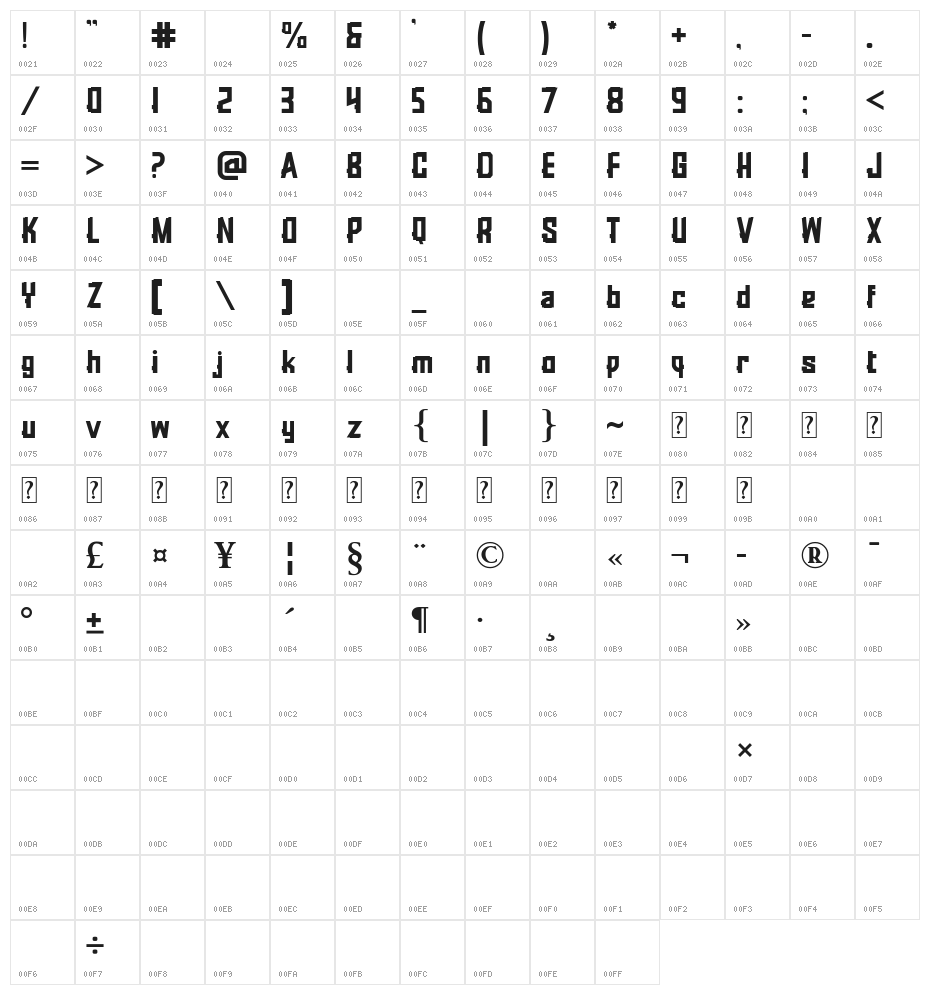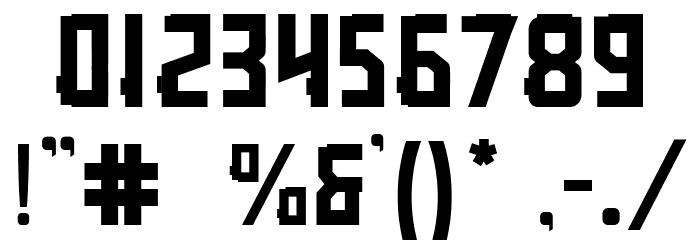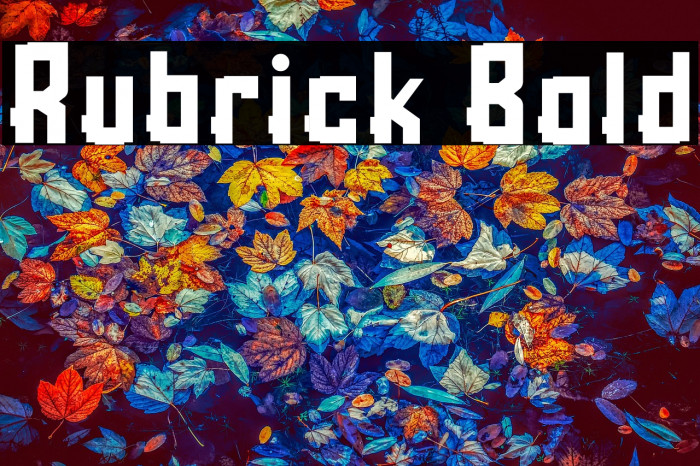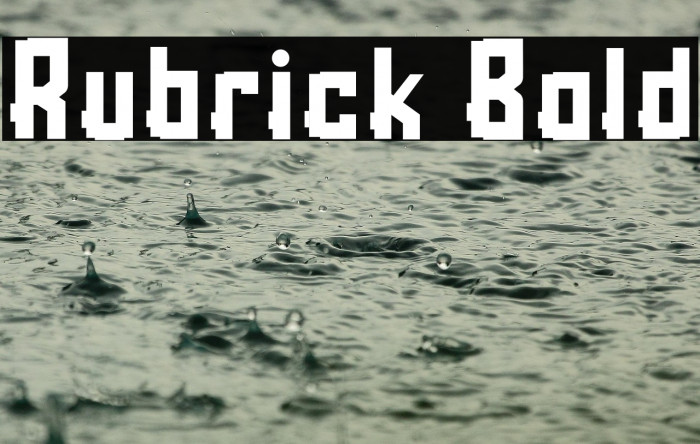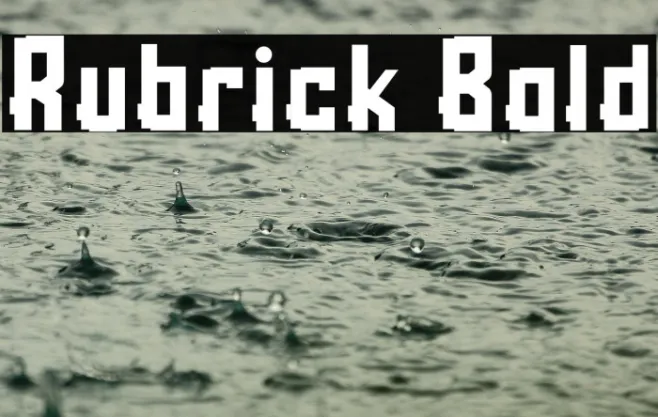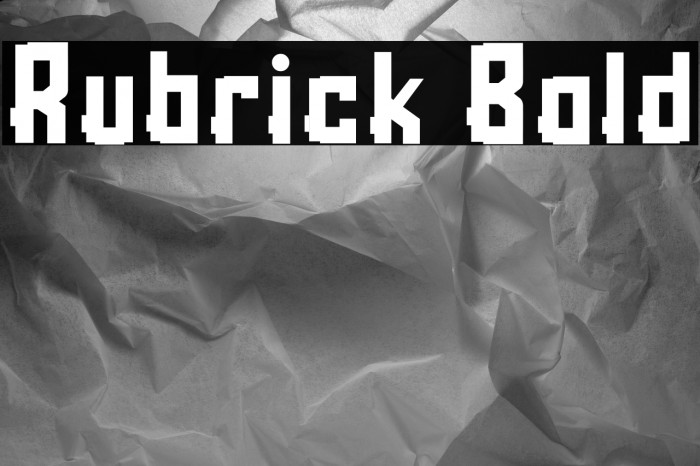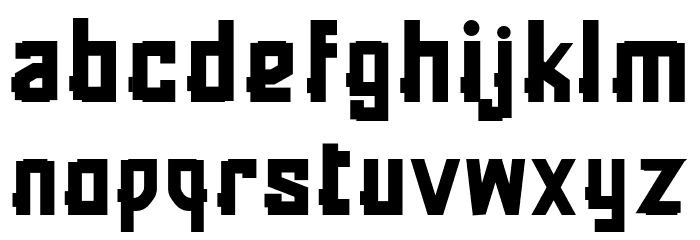
Rubrick Bold Font
Rubrick Bold Description
This font exhibits a bold, geometric style with a pixelated appearance reminiscent of digital or retro video game aesthetics. The characters are blocky and angular, with consistent stroke widths that create a uniform and structured look. The uppercase and lowercase letters maintain a similar height, contributing to the font's cohesive and compact design. The numerals and special characters follow the same stylistic approach, ensuring visual harmony across all elements. The font's distinct style makes it stand out, making it suitable for projects that require a strong, eye-catching typeface.
| Proposed Projects | Ideal for video game graphics, digital art, retro-themed posters, and branding that requires a bold statement. |